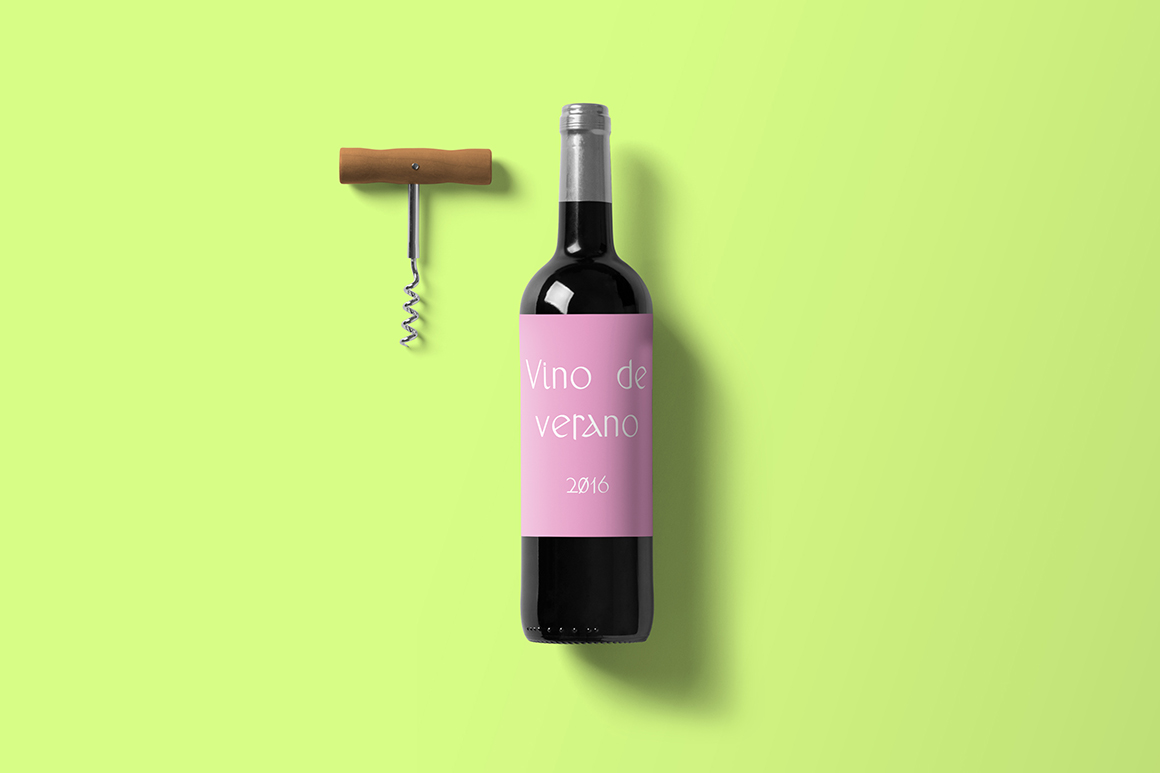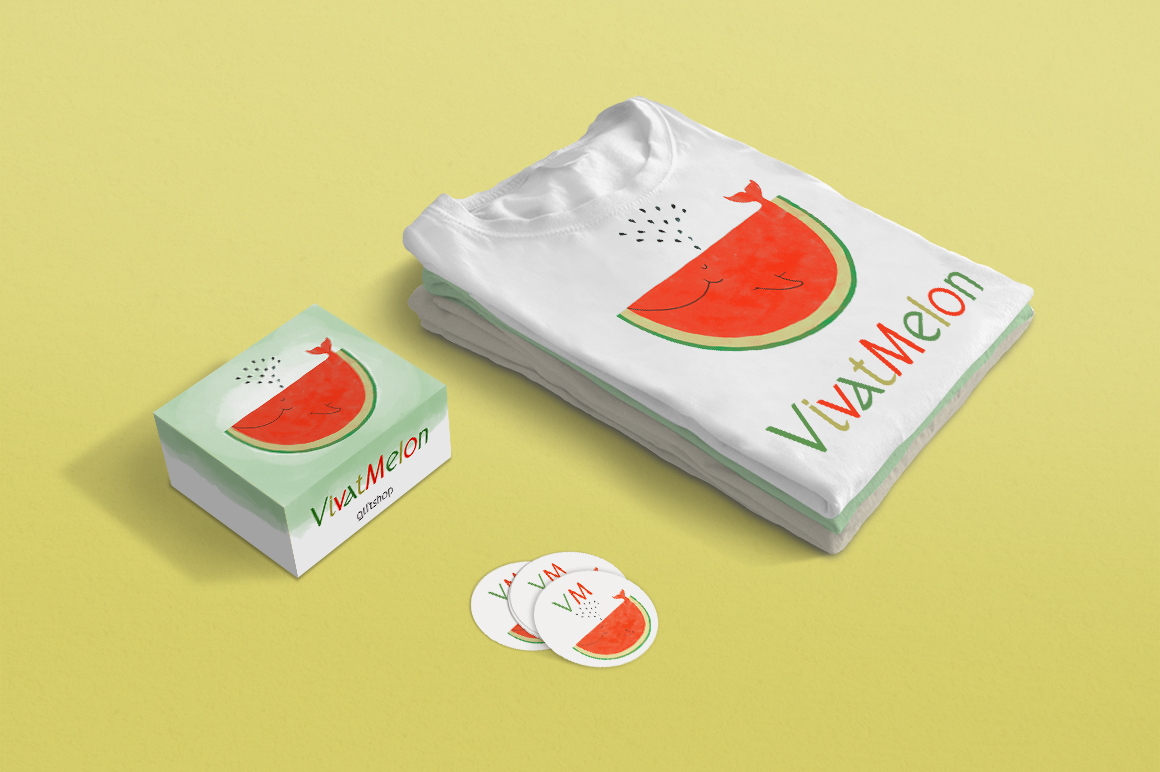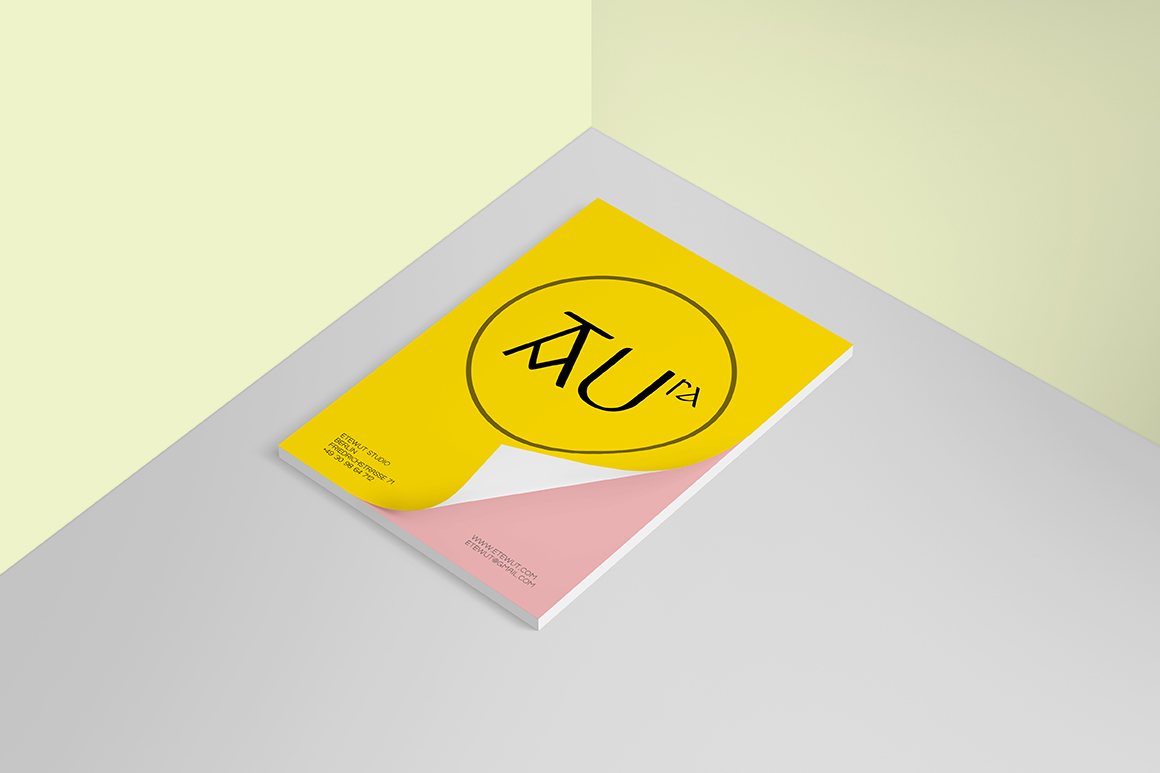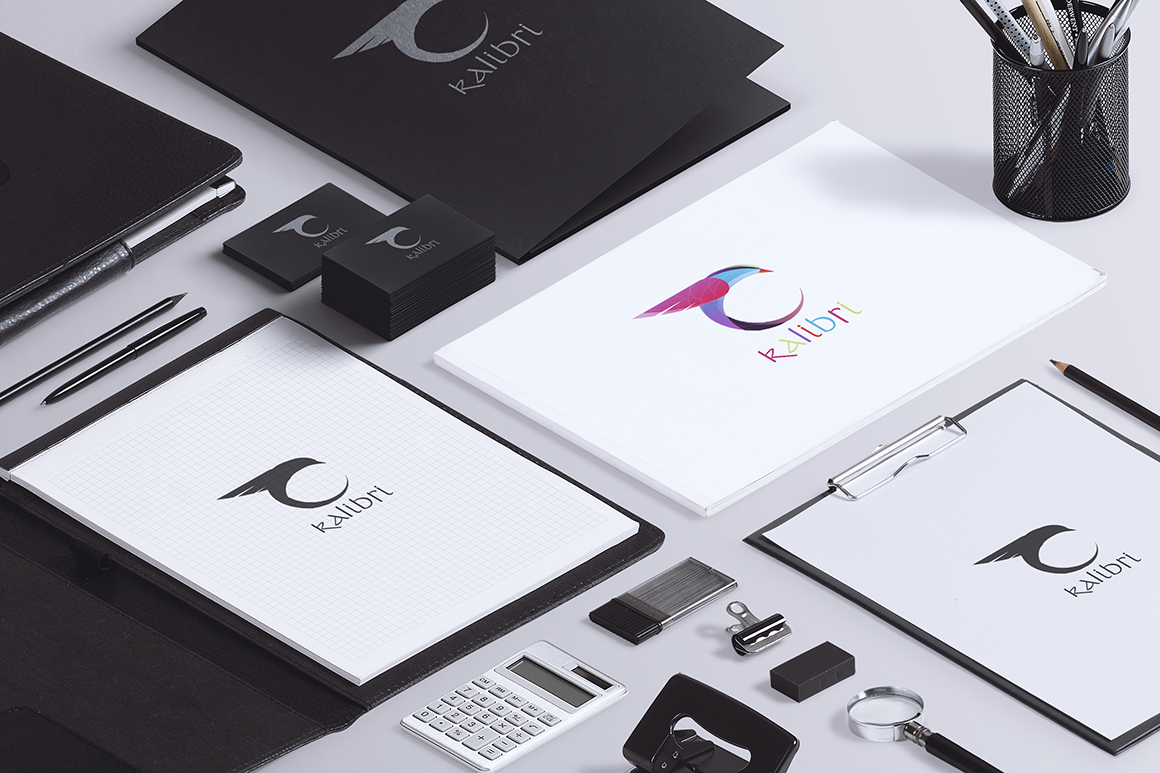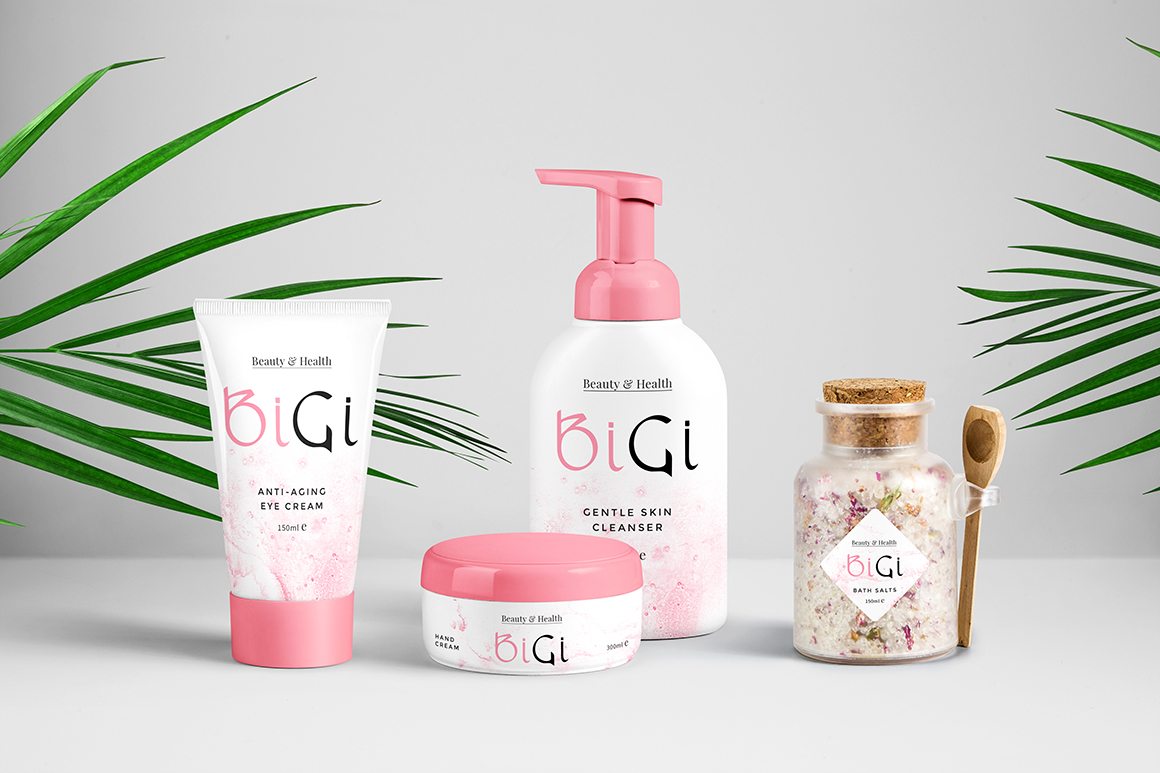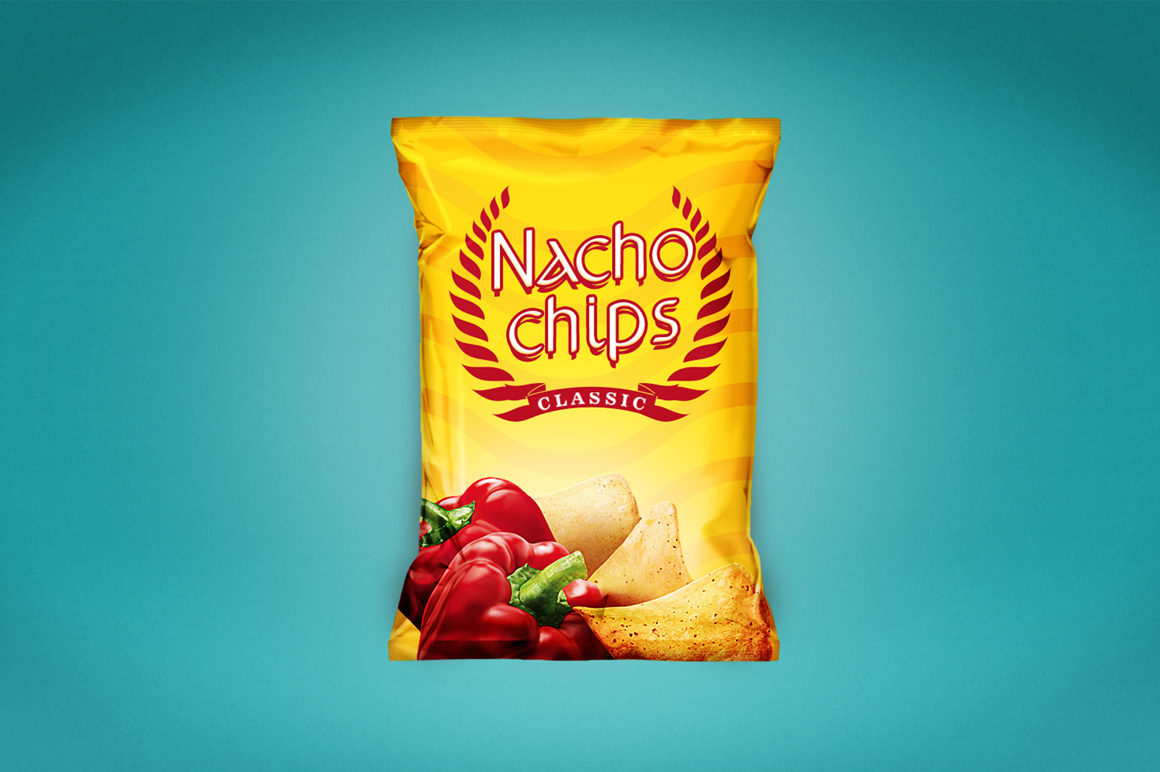
Introducing Anchor Italic Font: A Magical Display Font Inspired by Russian Fairy Tales
In the world of typography, fonts play a crucial role in bringing designs to life. For designers and crafters looking to add a touch of magic to their creations, the Anchor Italic Font is an excellent choice. Inspired by Russian fairy tales and utilizing Cyrillic lettering, this display font is sure to captivate audiences and transport them to a world of wonder.
The Story Behind Anchor Italic Font
Anchor Italic Font is a display font that draws inspiration from the rich cultural heritage of Russian fairy tales. The font’s creator aimed to capture the essence of these timeless stories, infusing the font with a sense of mystique and enchantment. The result is a font that is both elegant and whimsical, perfect for designs that require a touch of sophistication and playfulness.
Key Features of Anchor Italic Font
Anchor Italic Font boasts several key features that make it an excellent addition to any designer’s toolkit. Some of its notable features include:
• Cyrillic Lettering: The font’s Cyrillic lettering gives it a unique and distinctive look, setting it apart from more traditional fonts.
• European Language Support: Anchor Italic Font comes packed with extra symbols to support European languages, making it an excellent choice for designers working on international projects.
• Versatility: The font’s versatility allows it to match many different styles of design, from elegant and sophisticated to playful and whimsical.
Use Cases for Anchor Italic Font
Anchor Italic Font is an incredibly versatile font that can be used in a wide range of design projects. Some potential use cases include:
• Branding and Logo Design: The font’s unique and distinctive look makes it an excellent choice for branding and logo design projects.
• Wedding and Event Design: Anchor Italic Font’s elegant and whimsical feel makes it perfect for wedding and event designs, such as invitations, programs, and signage.
• Packaging Design: The font’s versatility and European language support make it an excellent choice for packaging design projects, particularly for products targeting international audiences.
Tips for Using Anchor Italic Font
In conclusion, Anchor Italic Font is a magical display font that is sure to bring a touch of wonder to any design project. With its unique Cyrillic lettering, European language support, and versatility, it’s an excellent choice for designers and crafters looking to add a touch of magic to their creations. Whether you’re working on a branding project, wedding design, or packaging design, Anchor Italic Font is sure to impress.